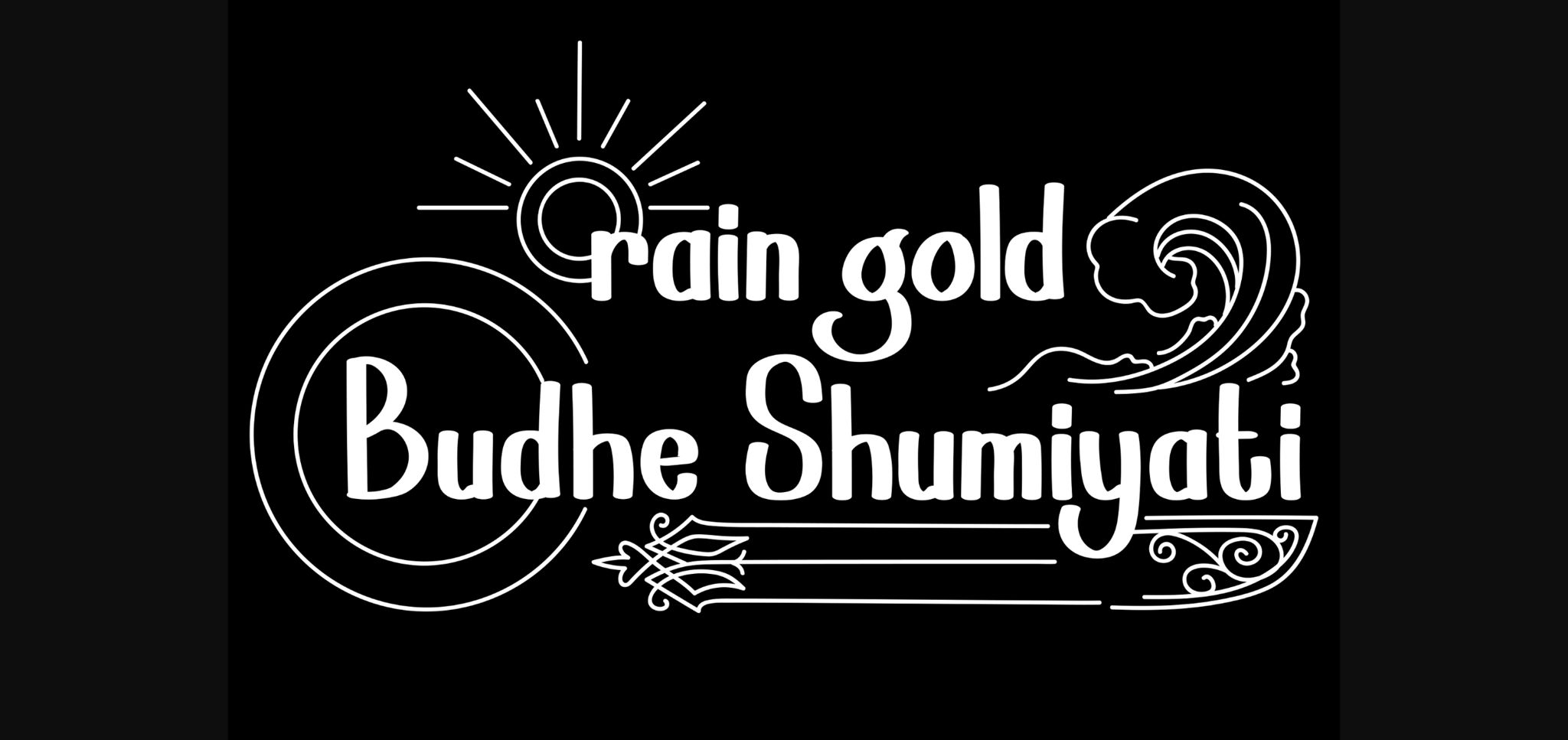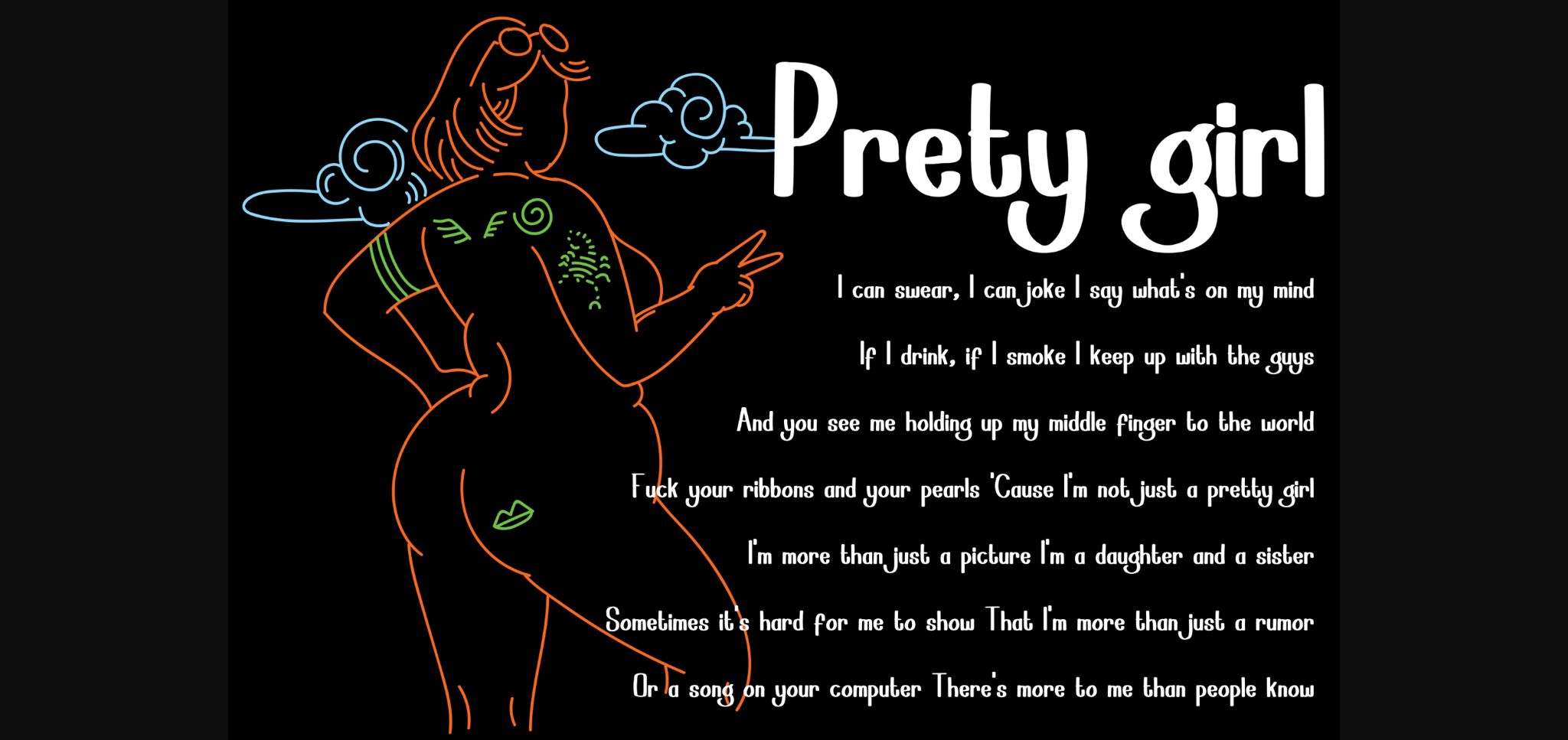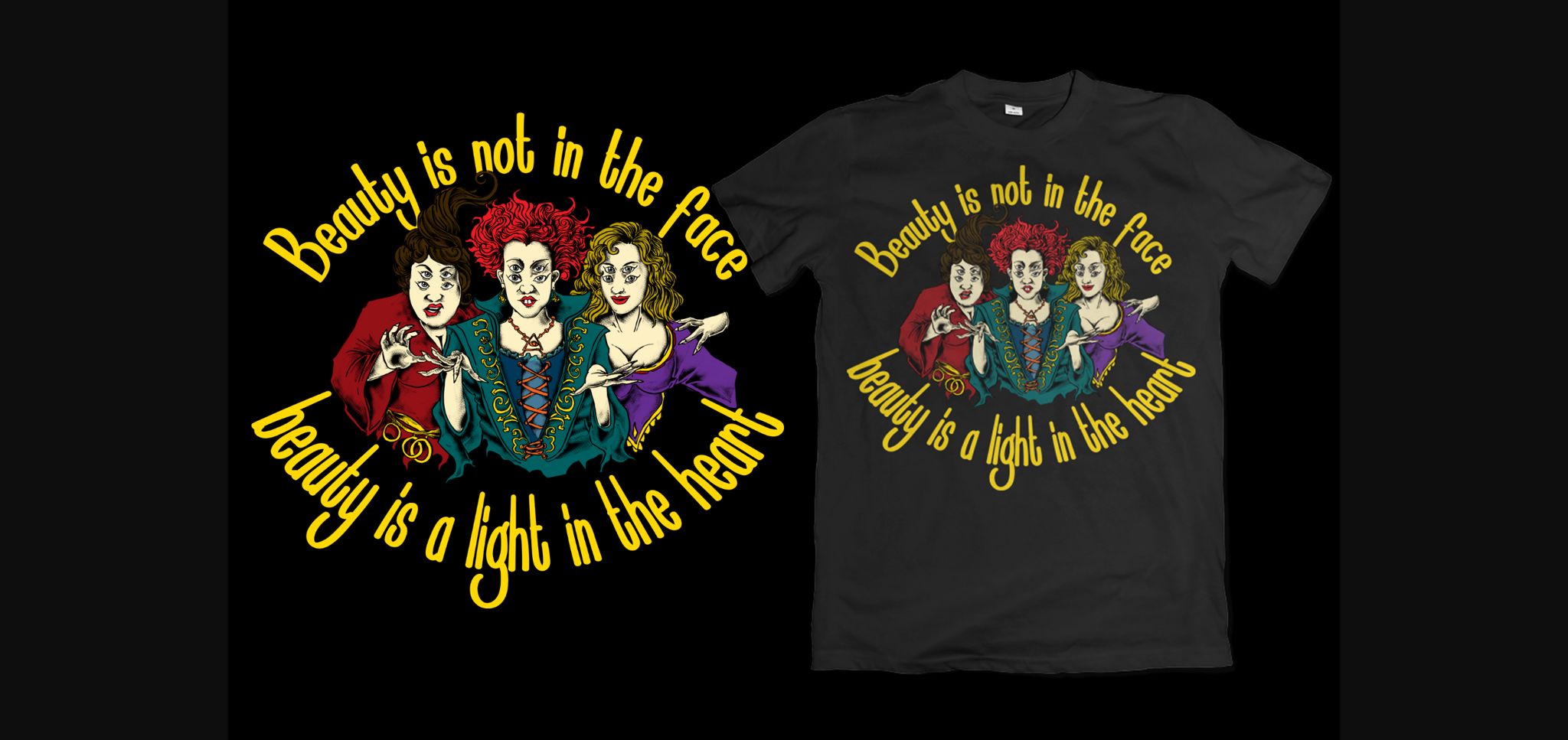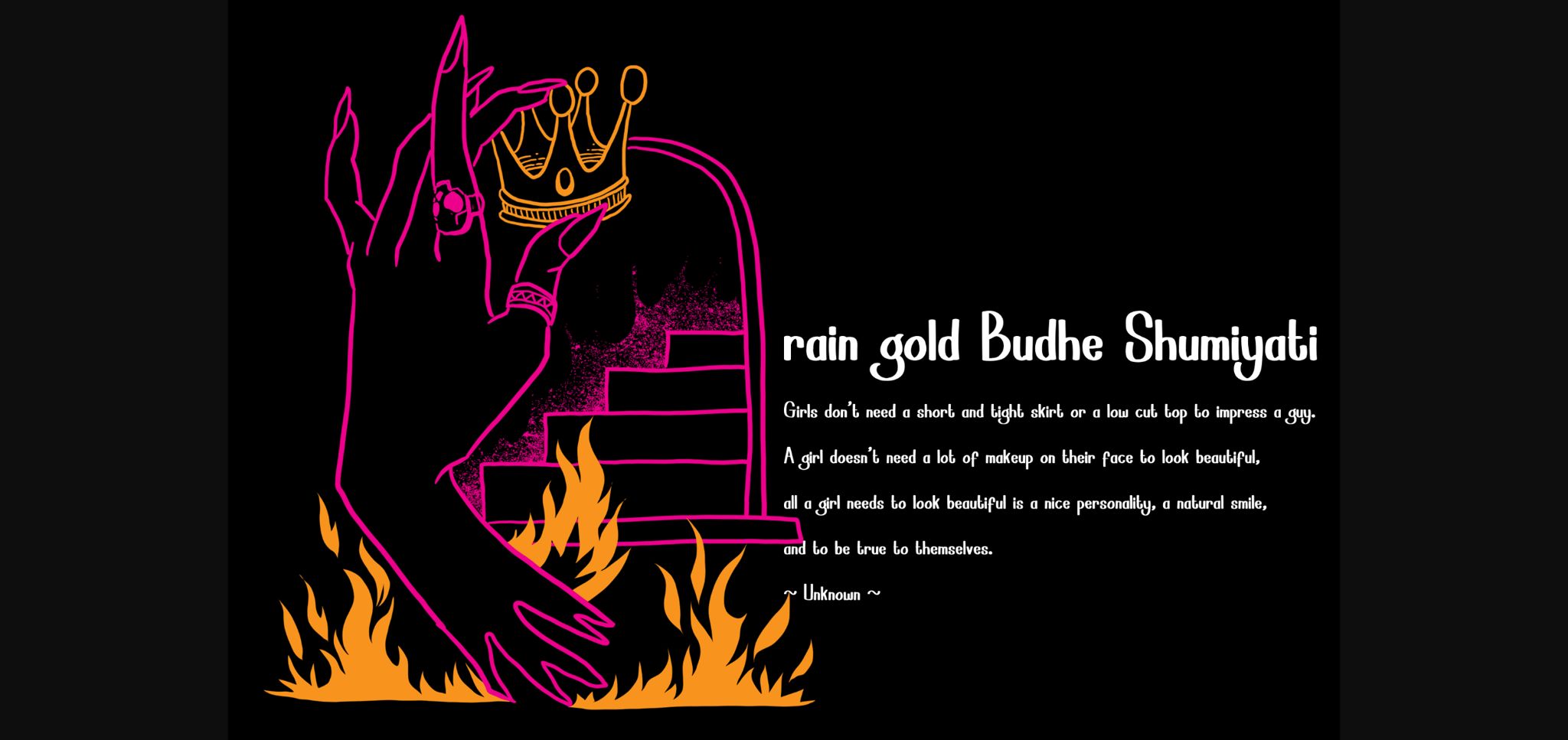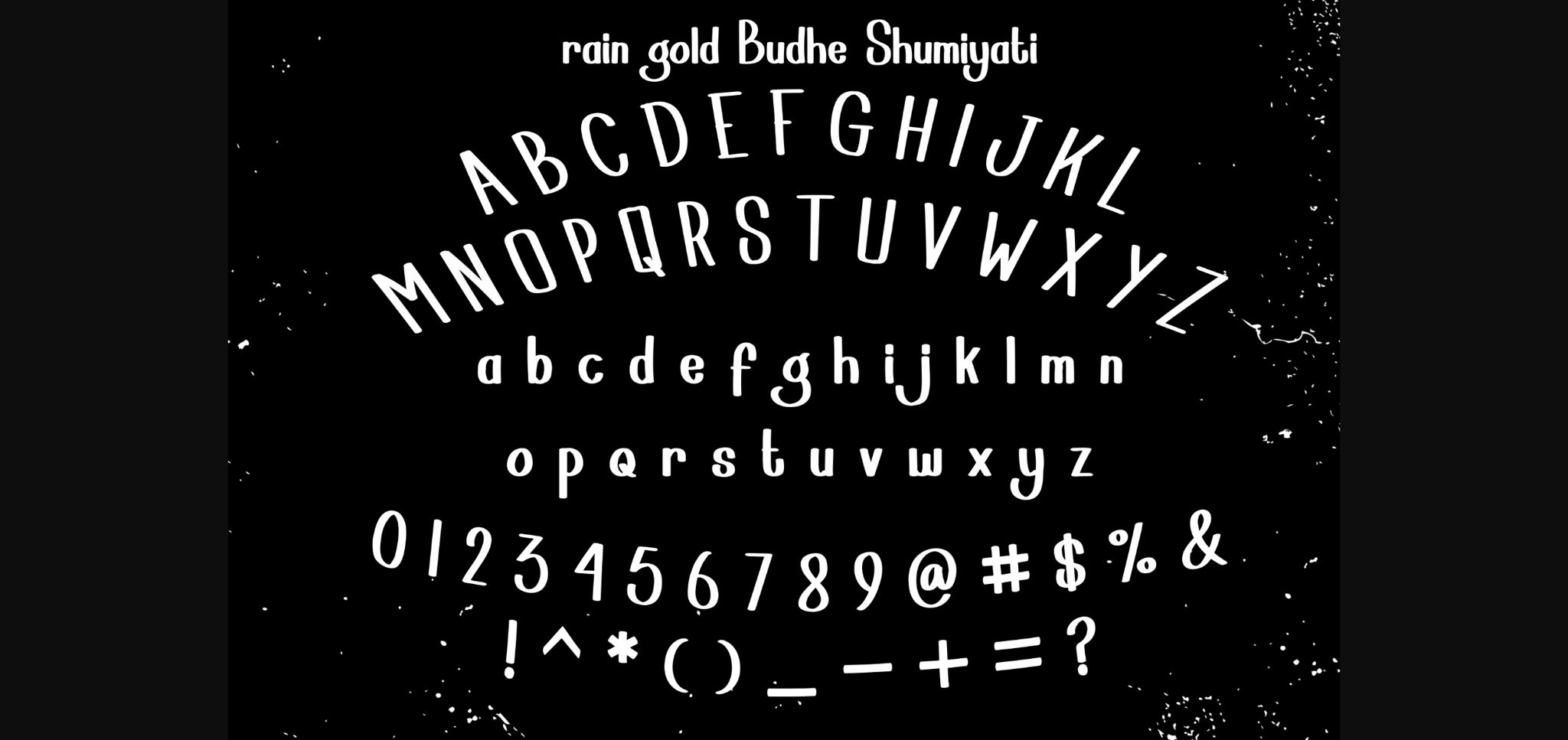
HomeSans Serif FontsRaingold Budhe Shumiyati Font Sans Serif Fonts Raingold Budhe Shumiyati Font FacebookXPinterestWhatsApp 1 of 8 ... Raingold Budhe Shumiyati Font Poster 2... Raingold Budhe Shumiyati Font Poster 3... Raingold Budhe Shumiyati Font Poster 4... Raingold Budhe Shumiyati Font Poster 5... Raingold Budhe Shumiyati Font Poster 6... Raingold Budhe Shumiyati Font Poster 7... Raingold Budhe Shumiyati Font Poster 8... About Raingold Budhe Shumiyati Font Raingold Budhe Shumiyati is a cute and simple sans serif font. Its natural and unique style makes it incredibly fitting to a large pool of designs. DOWNLOAD NOW People also explored Happy Events Font Vibrant Women Signalis Script Font Santuyges Font Broken Dark Font Waialua Aisha Font Sagata Normal Font Shugarpie Honeybunch Font 373 0 TagsRaingold Budhe Shumiyati Font Previous articleVogie FontNext articleHello Winter Font LEAVE A REPLY Cancel reply Comment: Please enter your comment! Name:* Please enter your name here Email:* You have entered an incorrect email address! Please enter your email address here Website: Save my name, email, and website in this browser for the next time I comment. Personal Use Free Latifah Personal Use Free Read more about this font Alnair Star Personal Use Free Read more about this font Axaxax Bold Personal Use Free Read more about this font Shkoder 1989 Personal Use Free Read more about this font BLOG Where to Buy American Fonts Online in 2024 Where to Buy American Fonts Online: The Ultimate Guide for 2024 Looking for the perfect American font to elevate your design projects? You're in the... How to Install and Use Fonts on Windows, macOS, and Web Projects 5 Fonts That Will Dominate Design Trends in 2026 Best Fonts for T-Shirt Design – Top 2025 Picks